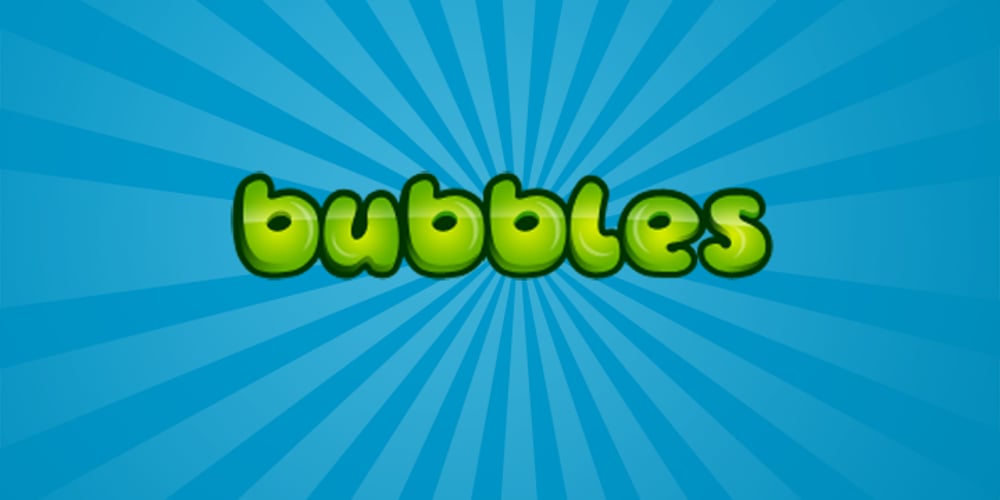
Banzai Moloko Font Family was designed by Sergey Epifanov and published by BanzaiTokyo. Banzai Moloko contains 1 styles and family package options. Did you ever draw something with you finger in milk that has been just spilled on the table?